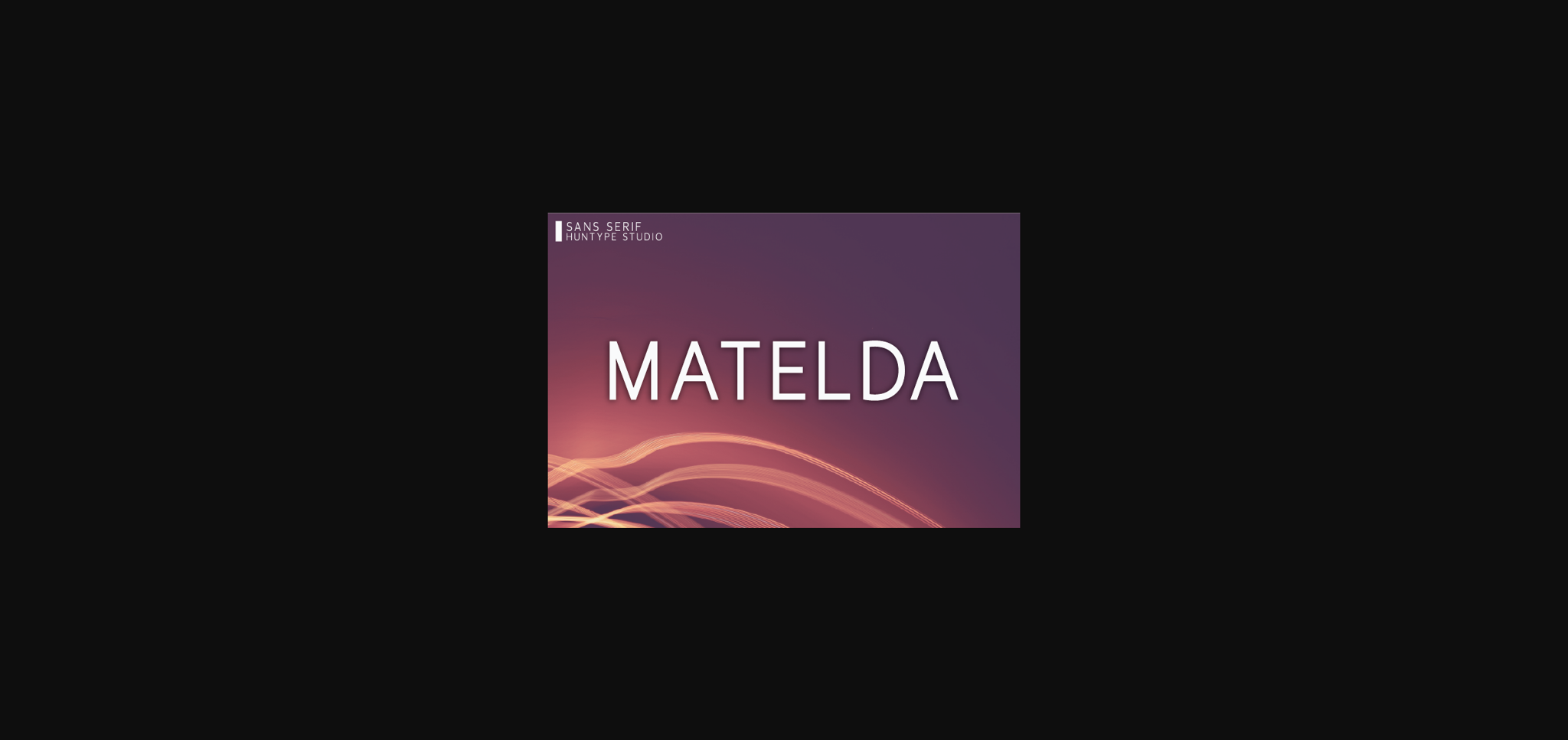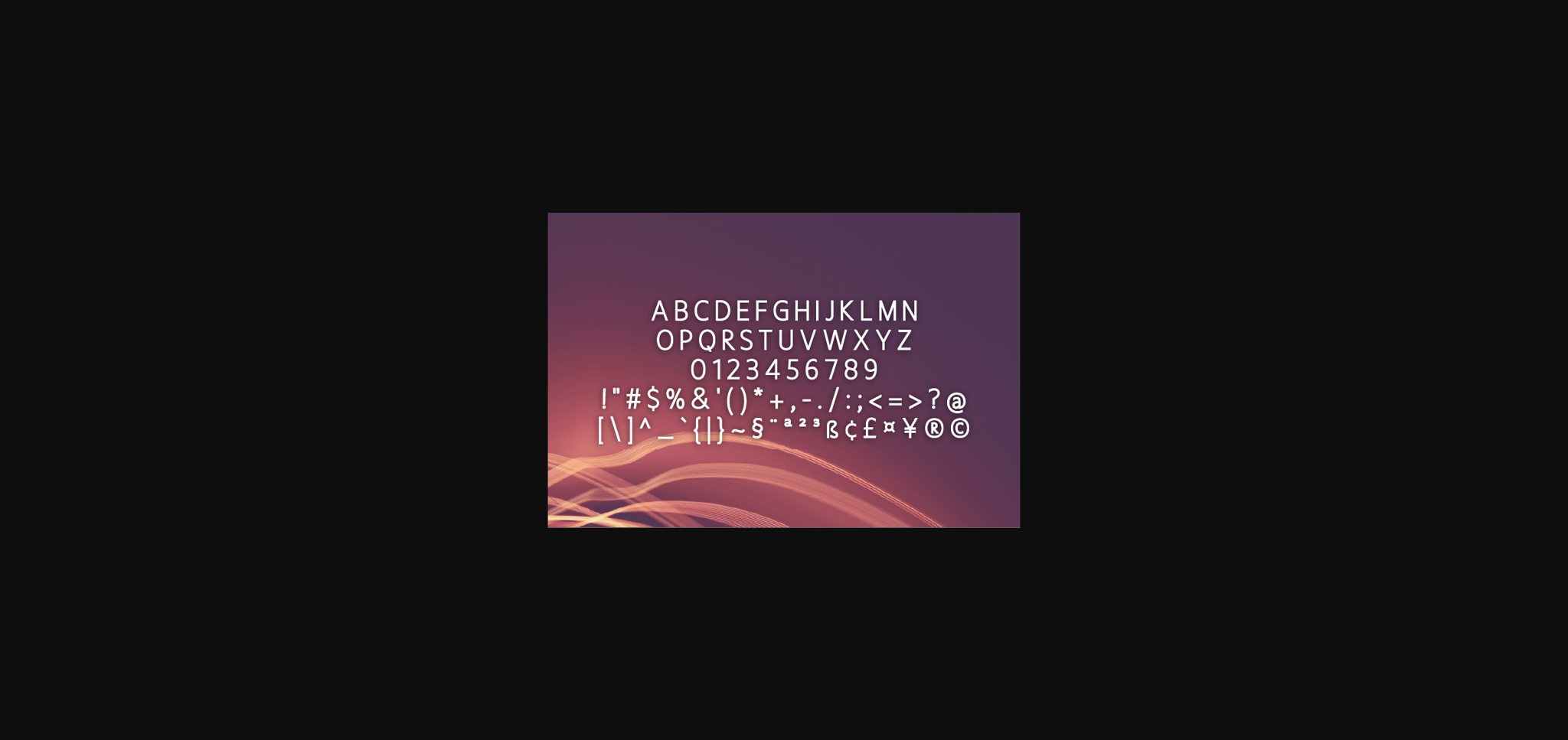
Matelda is a thin and clean sans serif font. It can be used for various purposes such as logos, headings, t-shirts, letterhead, signage, labels, news, posters, badges and so much more.